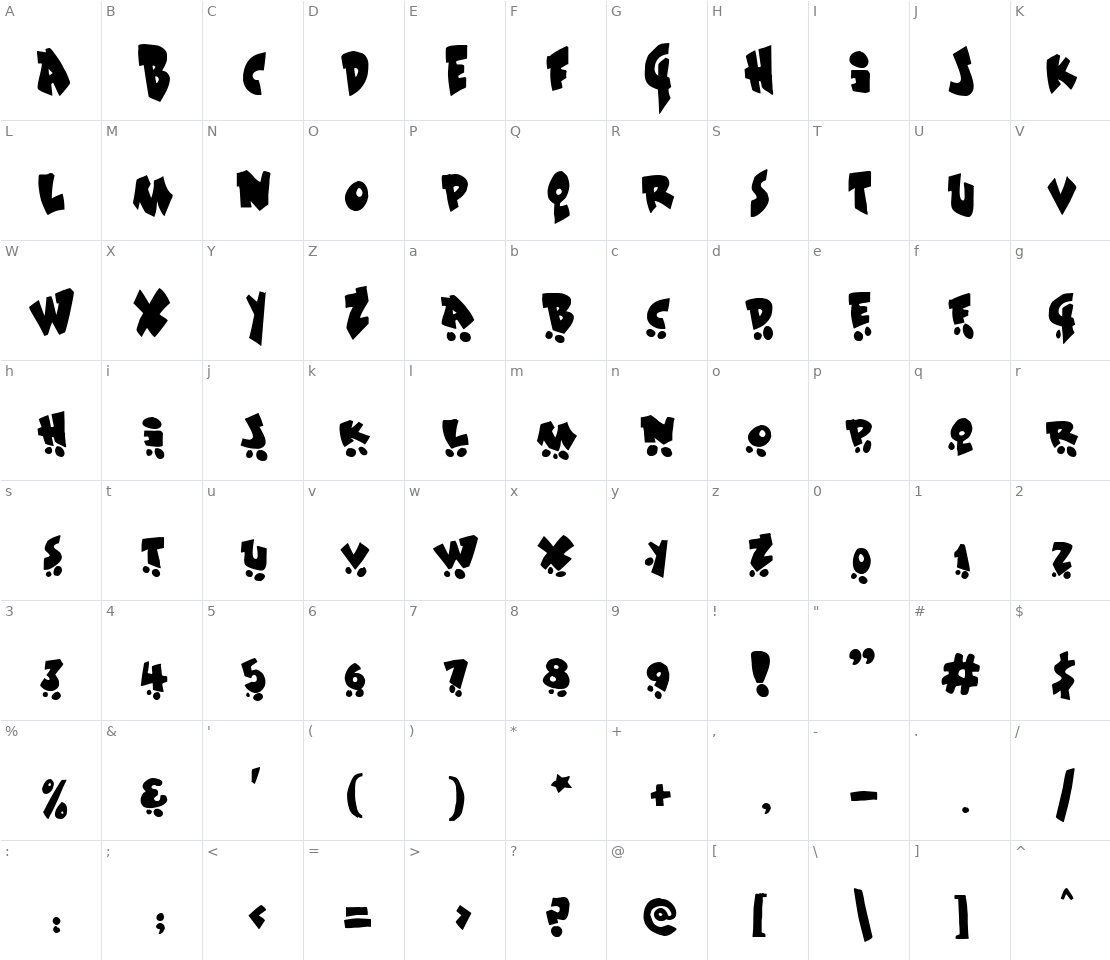
Sk8 Or Die
Sk8 Or Die is a heavy, playful comic face from Pizza Dude that channels the rebellious energy of '90s skate culture. The letterforms are chunky and loose, with quirky, uneven shapes that feel like they were scrawled on the bottom of a deck or spray-painted on a halfpipe. Built for headlines, stickers, and youth-oriented branding where you want loud, streetwise personality.